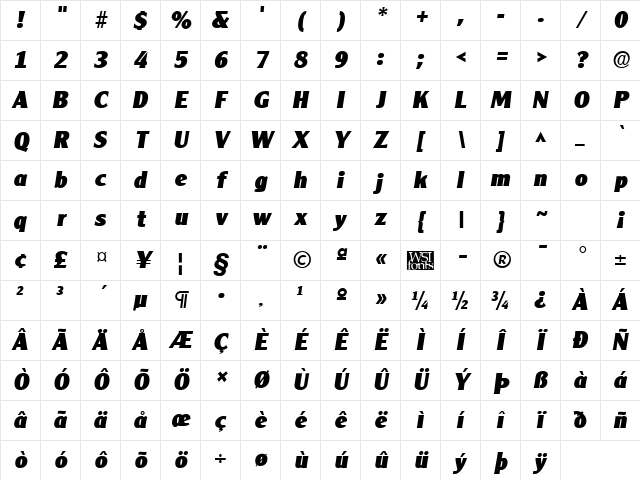
ClearlyGothicHeavy Italic
Complete ClearlyGothicHeavy Italic glyph index. Displaying only characters natively supported by ClearlyGothicHeavy Italic font.
Design Context for ClearlyGothicHeavy
ClearlyGothicHeavy takes a clean, functional approach - its unadorned letterforms prioritise legibility and work reliably across screen and print environments. The slanted form adds forward momentum and visual energy.
Font Pairing: Works well alongside a characterful serif or display font that can carry the expressive load while ClearlyGothicHeavy handles the functional copy.
Pro Tip: Use ClearlyGothicHeavy for UI labels, navigation, and short-form body copy where clean legibility is the priority.